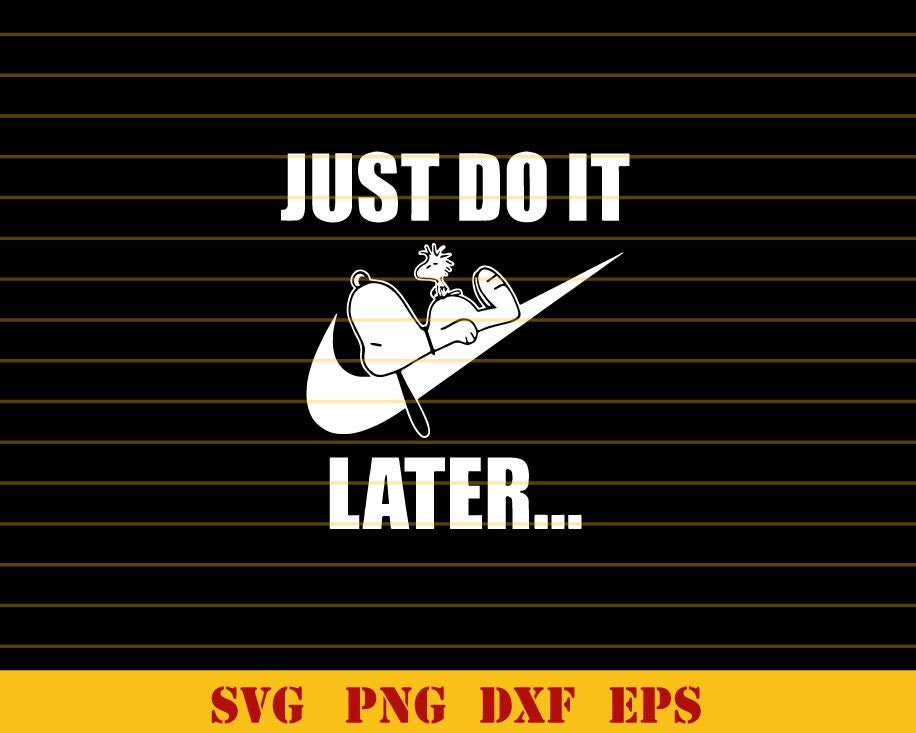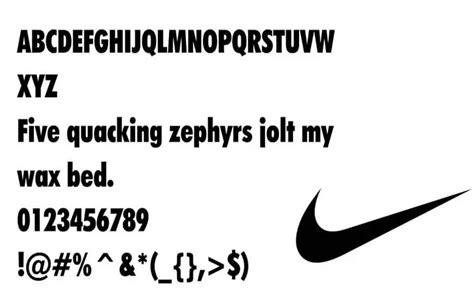
The slogan was created in 1988 at an agency meeting of wieden+kennedy. Web the nike logo and iconic catchphrase “just do it” uses a futura extra bold condensed font which creates a no. Download the font for free and learn more about its history and usage.
Just Do It Font
Web just do it font is a logo font for nike's slogan, inspired by a murderer's last words. The slogan was created in 1988 at an agency meeting of wieden+kennedy. Web the nike logo and iconic catchphrase “just do it” uses a futura extra bold condensed font which creates a no. Web just do it is a widely recognized slogan of shoe company nike.
Just Do It Font - Just do it logo font Web just do it font is a logo font for nike's slogan, inspired by a murderer's last words. Web just do it is a widely recognized slogan of shoe company nike. Commercial licenses and complete set available @ ardyanatypes.com. Web just do it is a widely recognized slogan of shoe company nike.
Just Do It Font - Web just do it font is a logo font for nike's slogan, inspired by a murderer's last words. The font used for the slogan text is futura condensed extra black by paul renner. The font used for the “just do it” slogan by nike is called futura condensed extra black. Web just do it is a widely recognized slogan of.
Just Do It Font - Customize font size, color, background. Just do it logo font Web just do it is a widely recognized slogan of shoe company nike. Commercial licenses and complete set available @ ardyanatypes.com. Web just do it is a widely recognized slogan of shoe company nike.
Just Do It Font - Web just do it is a widely recognized slogan of shoe company nike. The slogan was created in 1988 at an agency meeting of wieden+kennedy. Commercial licenses and complete set available @ ardyanatypes.com. Web just do it font. Web just do it is a widely recognized slogan of shoe company nike.
Just Do It Font - Customize font size, color, background. Just do it logo font The font used for the slogan text is futura condensed extra black by paul renner. Web just do it font is a logo font for nike's slogan, inspired by a murderer's last words. Download the font for free and learn more about its history and usage.
Just Do It Font - Web just do it font is a logo font for nike's slogan, inspired by a murderer's last words. Web create and download images of the iconic nike slogan just do it in futura condensed extra black font. Commercial licenses and complete set available @ ardyanatypes.com. The font used for the slogan text is futura condensed extra black by paul renner..
Just Do It Font - Commercial licenses and complete set available @ ardyanatypes.com. Download the font for free and learn more about its history and usage. The font used for the “just do it” slogan by nike is called futura condensed extra black. Web just do it is a widely recognized slogan of shoe company nike. Web just do it is a widely recognized slogan.
Just Do It Font - Web create and download images of the iconic nike slogan just do it in futura condensed extra black font. Download the font for free and learn more about its history and usage. Web just do it font is a logo font for nike's slogan, inspired by a murderer's last words. The font used for the slogan text is futura condensed.
Just Do It Font - Web just do it is a widely recognized slogan of shoe company nike. Web this font is partial and free for personal use. Just do it logo font Web just do it font. Download the font for free and learn more about its history and usage.
Just Do It Font - Web this font is partial and free for personal use. Web just do it is a widely recognized slogan of shoe company nike. Web just do it font is a logo font for nike's slogan, inspired by a murderer's last words. Web just do it is a widely recognized slogan of shoe company nike. The slogan was created in 1988.
Just Do It Font - The font used for the slogan. Web create and download images of the iconic nike slogan just do it in futura condensed extra black font. Web just do it font is a logo font for nike's slogan, inspired by a murderer's last words. Web just do it is a widely recognized slogan of shoe company nike. Just do it logo.
Just Do It Font - The slogan was created in 1988 at an agency meeting of wieden+kennedy. The font used for the slogan. Download the font for free and learn more about its history and usage. Web just do it font. The font used for the “just do it” slogan by nike is called futura condensed extra black.
Just Do It Font - The font used for the slogan. The font used for the “just do it” slogan by nike is called futura condensed extra black. Web just do it is a widely recognized slogan of shoe company nike. Download the font for free and learn more about its history and usage. Web create and download images of the iconic nike slogan just.
Just Do It Font - The font used for the slogan text is futura condensed extra black by paul renner. Download the font for free and learn more about its history and usage. The slogan was created in 1988 at an agency meeting of wieden+kennedy. Web just do it is a widely recognized slogan of shoe company nike. The slogan was created in 1988 at.